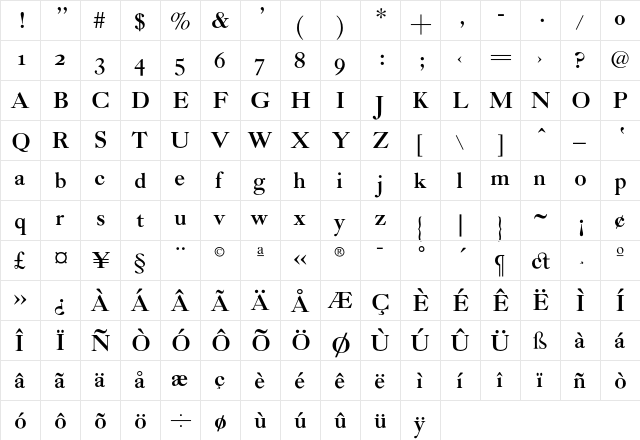
CaslonBoldH Regular Font Preview
CaslonBoldH Regular
Design Context for CaslonBoldH Typeface
CaslonBoldH is a composed and adaptable typeface that performs quietly and consistently across a wide range of design contexts. Its bold stroke weight gives it real presence on the page.